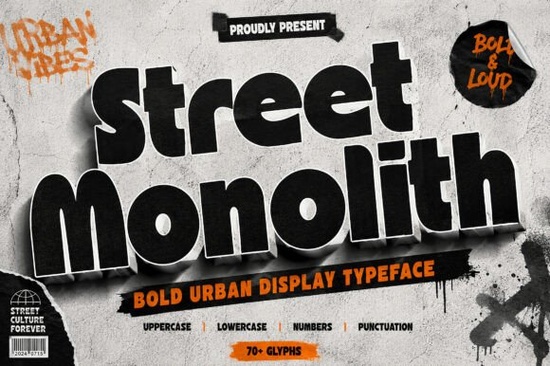
Street Monolith Font is a standout choice for anyone looking to add a strong, urban feel to their design projects. This bold display typeface is perfect for creating eye-catching visuals that demand attention. Whether you're working on streetwear branding, posters, or social media graphics, Street Monolith delivers the energy and attitude needed to make your work stand out.
Designed with chunky letterforms and a heavy structure, this font has a retro-groovy vibe that’s both modern and nostalgic. Its monolithic shape gives it a powerful visual impact, making it ideal for designs that need to make a statement. The font works well in a variety of applications, from album covers to packaging and beyond.
If you’re a designer, craftsperson, or small business owner, you’ll find that Street Monolith Font offers versatility and style. It’s especially useful for projects that require bold typography, such as gaming titles, stickers, and signage. The font’s unique character makes it a great fit for any creative who wants to infuse their work with a sense of urban flair.
Why Choose Street Monolith Font?
One of the main reasons designers choose Street Monolith is its ability to convey strength and confidence. The font’s boldness makes it perfect for headlines, logos, and other prominent text elements. It’s also easy to read, even at smaller sizes, which is important for maintaining clarity in your designs.
Another benefit is the font’s adaptability. While it’s designed to be loud and attention-grabbing, it can also be used in more subtle ways depending on the project. This flexibility makes it a valuable addition to any designer’s toolkit. Whether you're working on a high-impact poster or a simple social media graphic, Street Monolith can help you achieve the look you want.
The font’s street-inspired personality adds a layer of authenticity that many designers appreciate. It brings a sense of movement and energy to any design, making it a popular choice for brands that want to express a rebellious or edgy identity. This makes it particularly appealing for streetwear and music-related projects.
How to Use Street Monolith Font Effectively
To get the most out of Street Monolith Font, consider pairing it with simpler fonts for balance. For example, using it as a headline while keeping body text in a more traditional typeface can create a clean and professional look. This approach helps prevent the design from becoming too overwhelming.
When using the font in digital projects, keep in mind that it works best in larger sizes. Smaller text may lose some of its impact, so it’s best reserved for headings or key visual elements. For print projects, ensure that the font is properly embedded to avoid any issues with rendering.
Experimenting with different color combinations can also enhance the font’s visual appeal. Bold, contrasting colors tend to work well with Street Monolith, as they complement its strong presence. However, don’t be afraid to try more subdued tones if you’re going for a more refined look.
Each of these fonts has its own strengths and can be used in different design contexts. Trying them out can help you find the right fit for your specific needs.
Whether you're working on a personal project or a client’s design, Street Monolith Font provides a powerful and versatile solution. Its bold, urban style makes it a great choice for anyone looking to add a strong visual identity to their work. With its wide range of applications, it’s an asset that can elevate your creative output in many different ways.
Before finalizing your design, take the time to test the font in different settings. This will help you understand how it performs and ensure that it meets your expectations. By doing so, you can make the most of this impressive typeface and create designs that truly stand out.